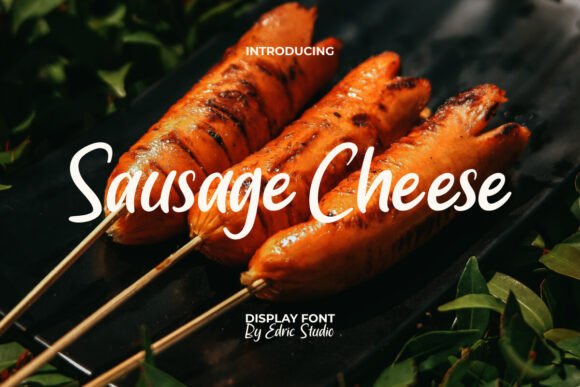
Sausage Cheese Font: The Perfect Addition to Your Design
In the world of typography, fonts play a crucial role in conveying the tone and personality of a brand or design. For foodies and designers alike, finding the right font can be a daunting task. However, if you’re looking for a modern and attractive font that can add a fun vibe to your design, look no further than the Sausage Cheese Font.
What is Sausage Cheese Font?
Sausage Cheese Font is a modern foodies display font created from a brush script font to give an attractive handwritten feel. This font is perfect for designers who want to add a personal touch to their designs, making them stand out from the crowd. The Sausage Cheese Font is versatile and can be used for a wide range of design projects, including apps, blogs, brochures, covers, flyers, headers, logos, packaging design, posters, price labels, quotes, screen prints, signage, stationery, stickers, titles, websites, and more.
Key Features of Sausage Cheese Font
- Modern and Attractive: The Sausage Cheese Font has a modern and attractive look that will make your design stand out. Its unique brush script style gives it a fresh and youthful feel that’s perfect for foodies and designers.
- Handwritten Feel: The font has a handwritten feel that adds a personal touch to your design. This makes it perfect for designs that require a more personal and approachable tone.
- Versatile: The Sausage Cheese Font is versatile and can be used for a wide range of design projects. Whether you’re designing a logo, brochure, or website, this font is sure to make your design look great.
- Easy to Read: The font is easy to read, making it perfect for designs that require a lot of text. The clear and legible letters ensure that your message gets across to your audience.
Ideas for Using Sausage Cheese Font
The Sausage Cheese Font is a versatile font that can be used for a wide range of design projects. Here are some ideas to get you started:
- Food Blogs: If you’re a food blogger, the Sausage Cheese Font is a great addition to your website. Use it for headings, titles, and even your logo to give your website a fresh and youthful feel.
- Restaurant Menus: Restaurants can use the Sausage Cheese Font to create attractive menus that will make their dishes look appetizing. Use it for menu headings, descriptions, and even prices.
- Food Packaging: If you’re a food manufacturer, use the Sausage Cheese Font on your packaging to make your products stand out on the shelves. It’s perfect for labels, packaging descriptions, and even instructions.
- Social Media Graphics: Use the Sausage Cheese Font to create eye-catching social media graphics that will make your audience stop scrolling. It’s perfect for quotes, fun facts, and even promotions.
Design Tips for Using Sausage Cheese Font
Here are some design tips to keep in mind when using the Sausage Cheese Font:
- Pair it with Other Fonts: The Sausage Cheese Font looks great when paired with other fonts. Try pairing it with a sans-serif font for a modern look or a serif font for a more traditional look.
- Use it for Headings: The Sausage Cheese Font is perfect for headings and titles. Use it to create eye-catching headings that will make your design stand out.
- Experiment with Colors: The Sausage Cheese Font looks great in a variety of colors. Experiment with different colors to find the one that works best for your design.
- Keep it Simple: Don’t overdo it with the Sausage Cheese Font. Keep your design simple and clean to ensure that the font is the focus.
In conclusion, the Sausage Cheese Font is a modern and attractive font that’s perfect for foodies and designers. Its unique brush script style gives it a fresh and youthful feel that’s sure to make your design stand out. With its versatility, ease of use, and design flexibility, the Sausage Cheese Font is a great addition to any design project.
- What is the Sausage Cheese Font? The Sausage Cheese Font is a modern foodies display font created from a brush script font to give an attractive handwritten feel.
- What can I use the Sausage Cheese Font for? You can use the Sausage Cheese Font for a wide range of design projects, including apps, blogs, brochures, covers, flyers, headers, logos, packaging design, posters, price labels, quotes, screen prints, signage, stationery, stickers, titles, websites, and more.
- Is the Sausage Cheese Font easy to read? Yes, the Sausage Cheese Font is easy to read, making it perfect for designs that require a lot of text.